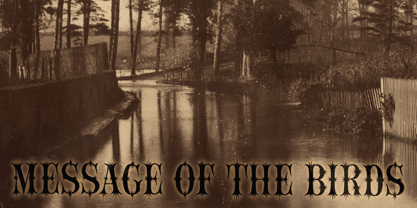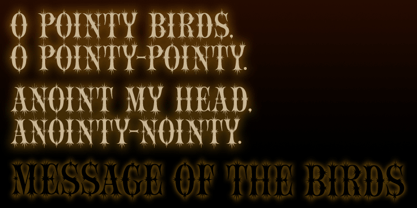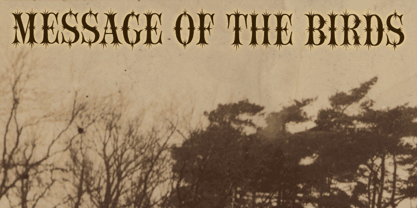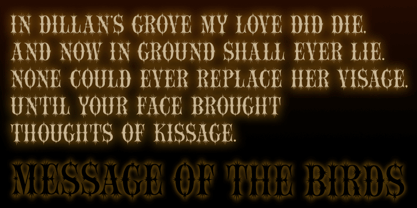
Message Of The Birds Font
Message Of The Birds Font is perfect for storybook illustrations, greeting cards, children’s book titles, nature-themed branding, and whimsical event invitations. Its gentle, artistic design adds a warm and imaginative touch to any creative project.
What makes Message Of The Birds Font exciting is its blend of hand-drawn charm and playful elegance. Each letter feels alive with personality, evoking a sense of wonder and creativity—making it perfect for projects that aim to inspire or tell a heartfelt story.
The Message Of The Birds Font family includes Regular, Bold, Italic, and Decorative styles, giving designers the freedom to explore various moods and themes. Whether you want a soft, dreamy title or a vibrant, cheerful headline, this font family adapts beautifully.